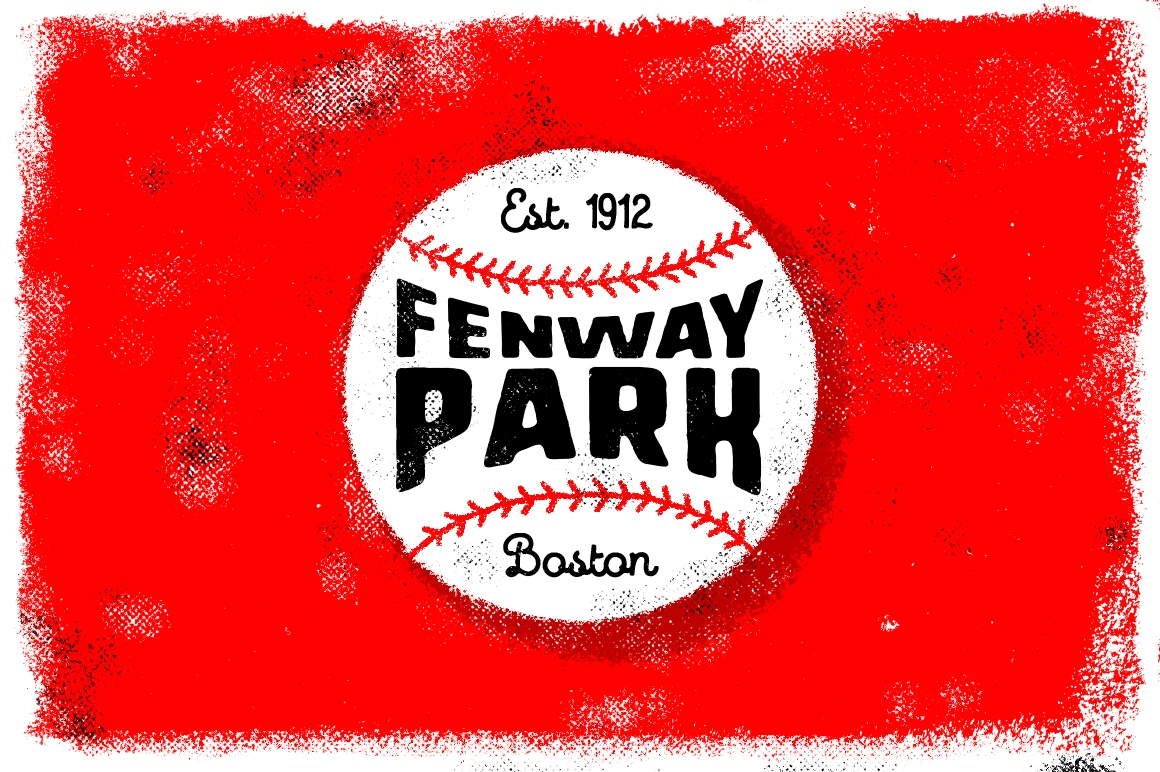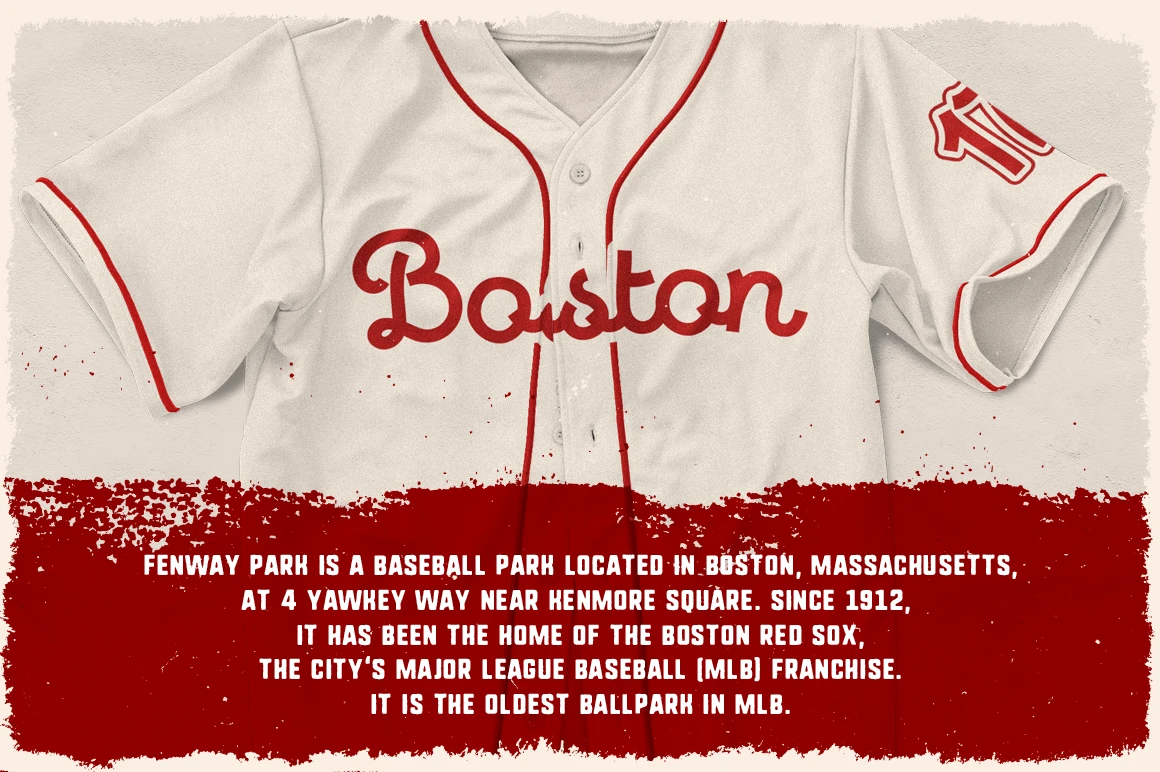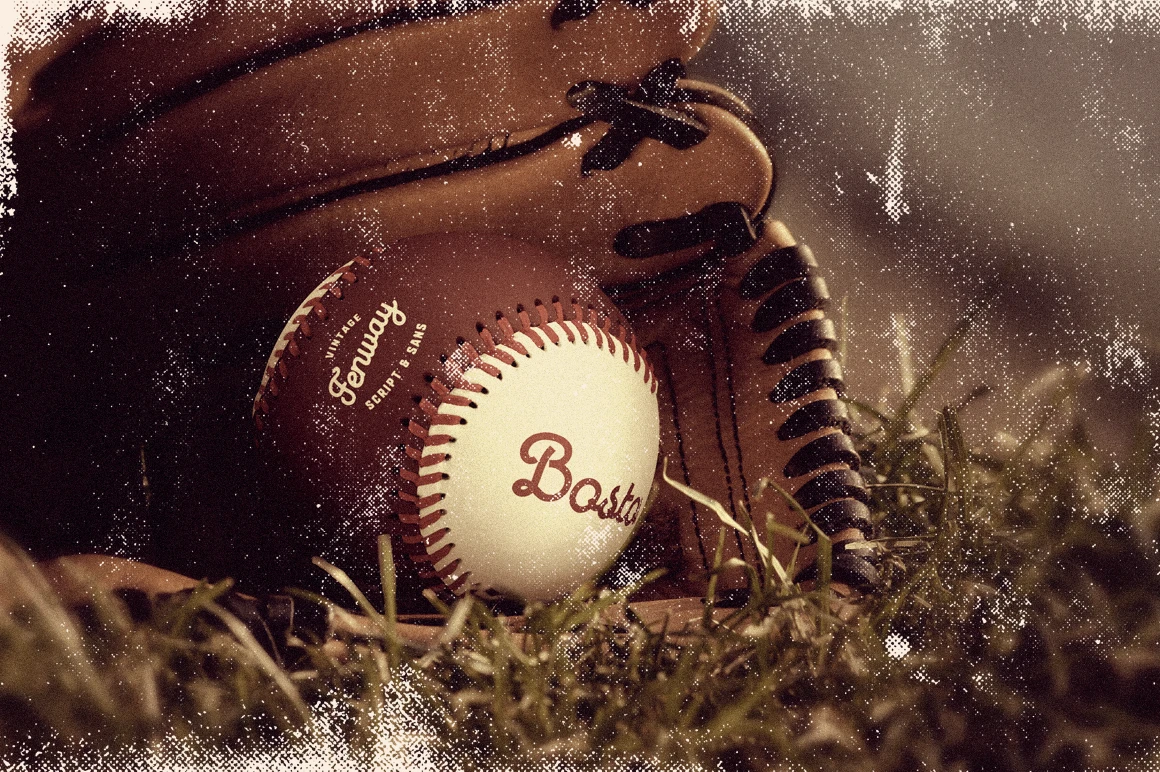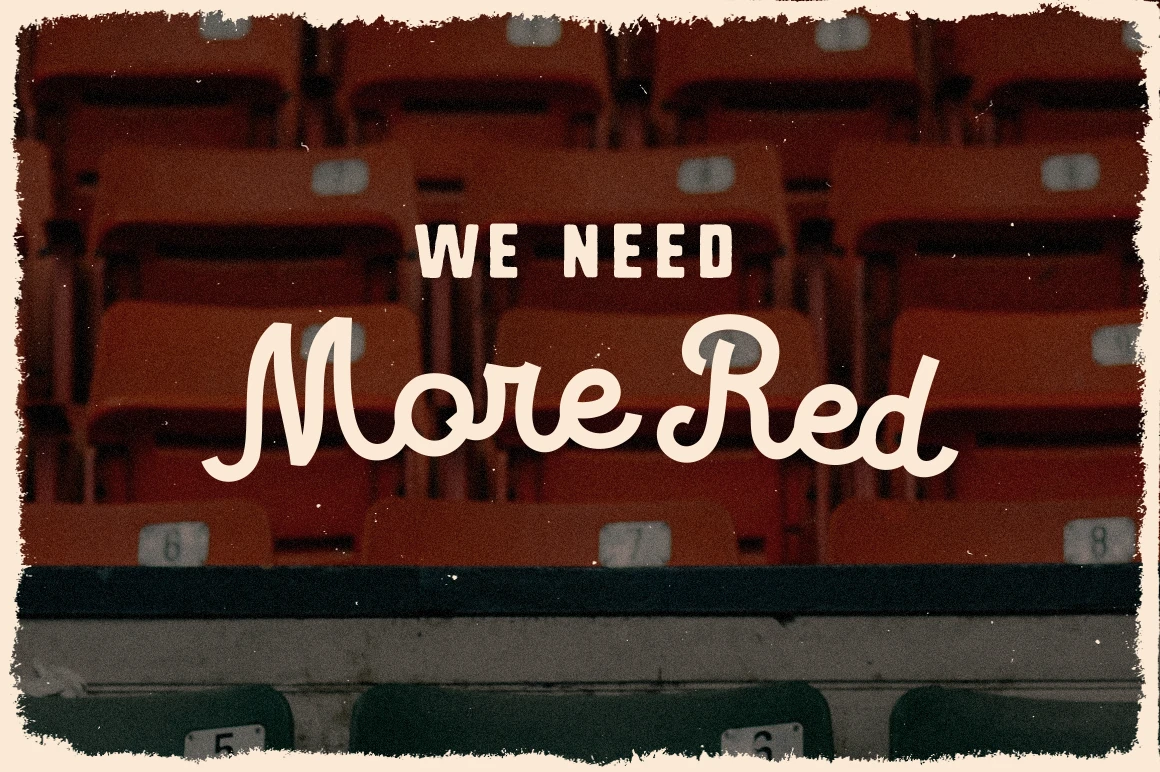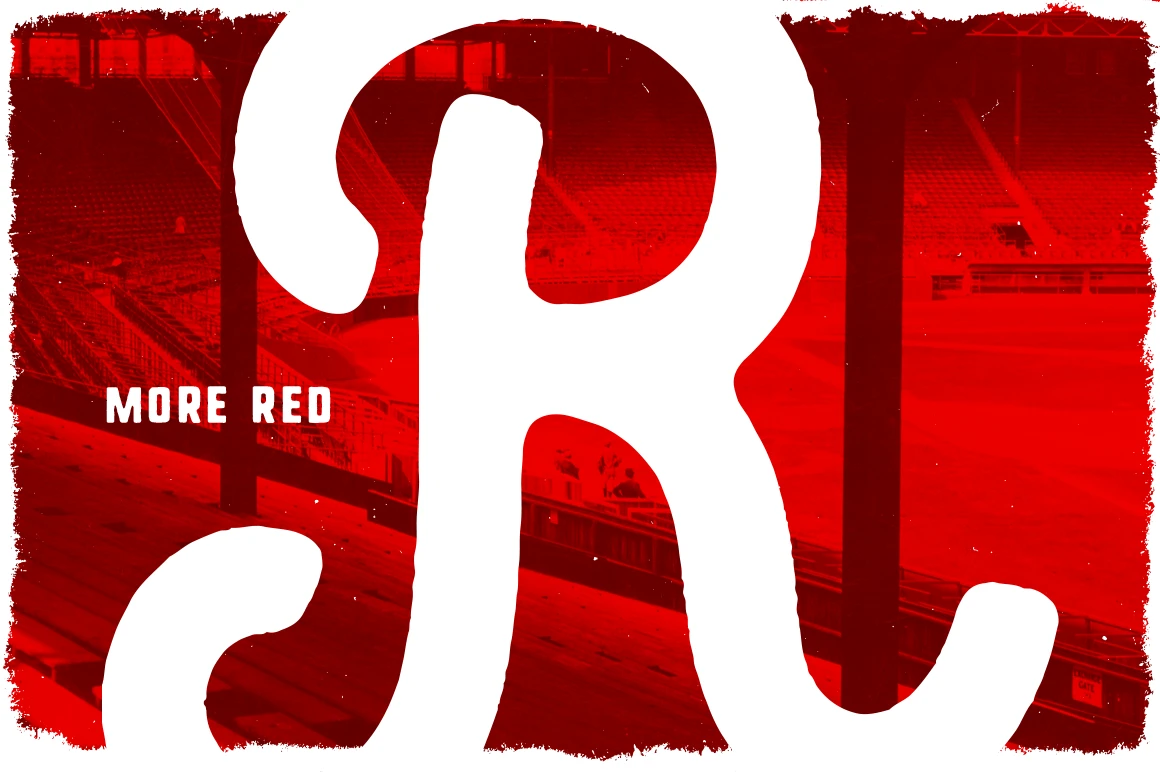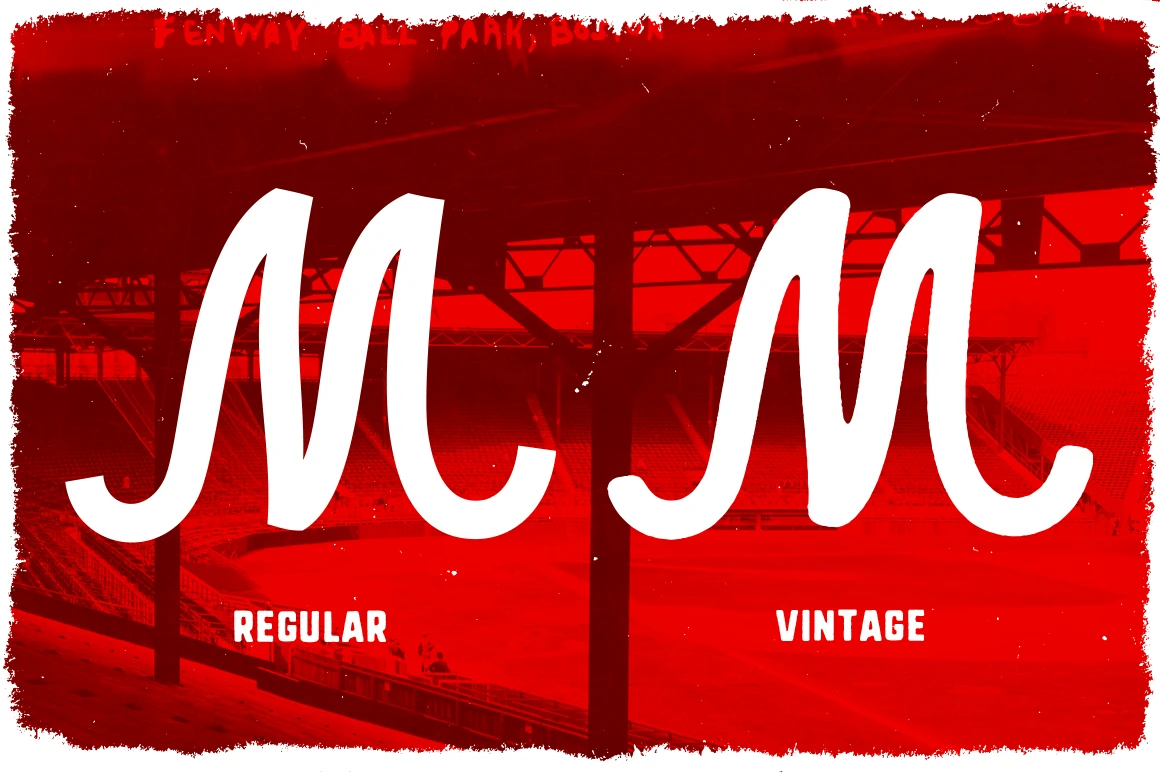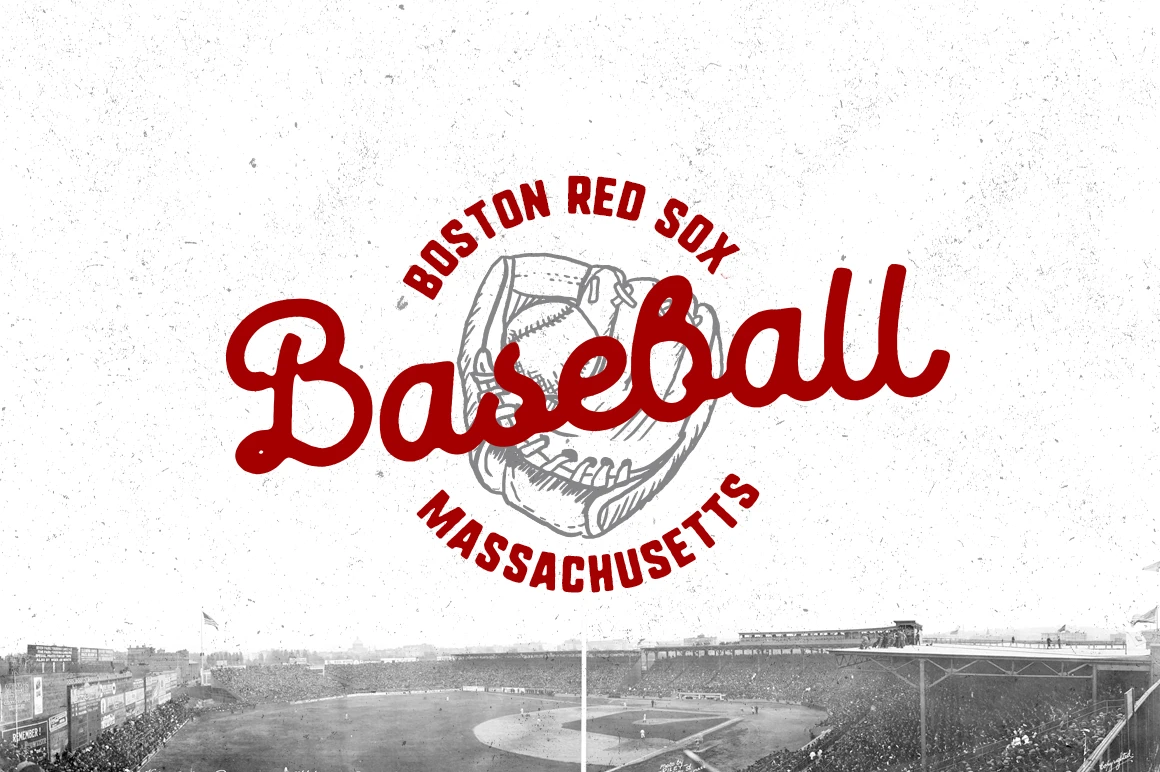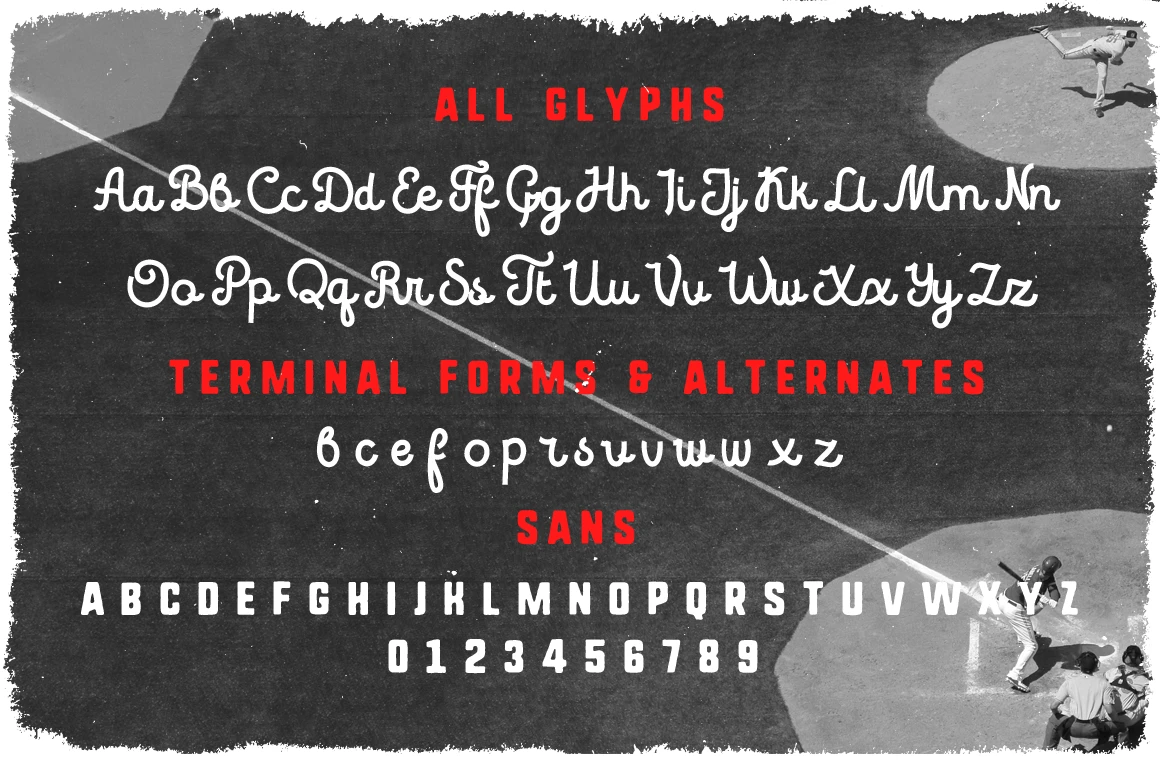
Felway Font Family
Felway is a vintage script font inspired by classic American sports lettering and retro typography. It draws from the old-school scripts found on vintage baseball jerseys and team logos. The set includes two script styles — Regular and Vintage — along with a matching vintage sans-serif. Ideal for logo design, t-shirts, posters, cards, and any project with a nostalgic athletic feel.
• Discretionary Ligatures
• Stylistic Alternates
• Stylistic Sets
Styles included • Regular • Vintage
Felway font styles
Felway Regular
Felway Vintage
Felway Sans Regular